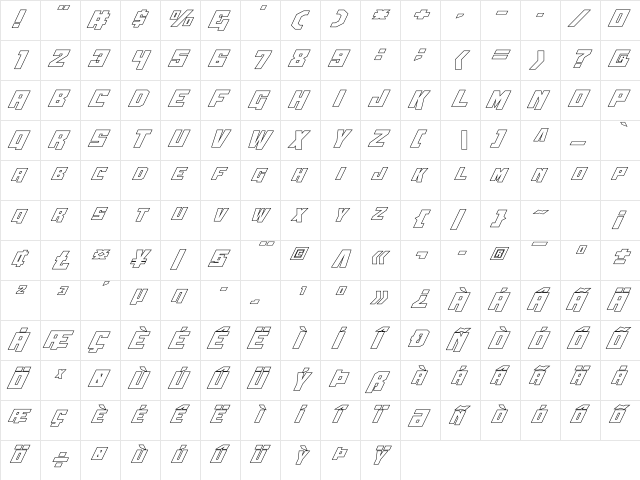
Whiskey Bravo Victor Outline Regular
| Designer | Dan Zadorozny |
Design Context for Whiskey Bravo Victor Outline Typeface
Whiskey Bravo Victor Outline is built around its visual character rather than neutral utility — its distinctive forms are designed to make an impression at display sizes.
Font Pairing: Pair with a clean neutral sans-serif for body copy to let Whiskey Bravo Victor Outline's character lead without overwhelming the composition.
Pro Tip: Use Whiskey Bravo Victor Outline exclusively at display sizes — it was designed to be seen, not read at length. Let a neutral companion handle body copy.